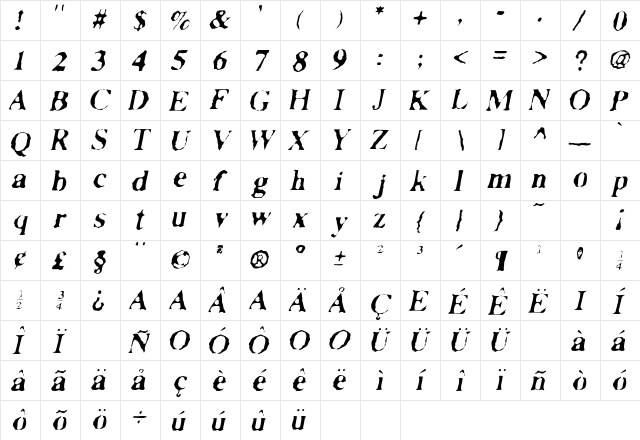
Complete Facsimiled Italic glyph index. Displaying only characters natively supported by Facsimiled Italic font.
Facsimiled is a composed and adaptable typeface that performs quietly and consistently across a wide range of design contexts. The slanted form adds forward momentum and visual energy.
Pro Tip: Use Facsimiled for emphasis, pull quotes, and subheadings where its slanted energy can add rhythm to the layout.